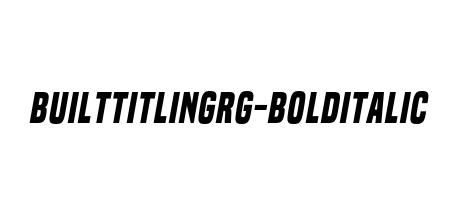
BuiltTitlingRg-BoldItalic
By Ray Larabie
BuiltTitlingRg-BoldItalic: A font that roars with confident energy. Its bold, italicized strokes convey a sense of dynamic movement and unwavering power. Ideal for headlines demanding attention, it projects a sense of authority and high-octane style. Think powerful branding, impactful announcements, or anything needing a strong visual punch.